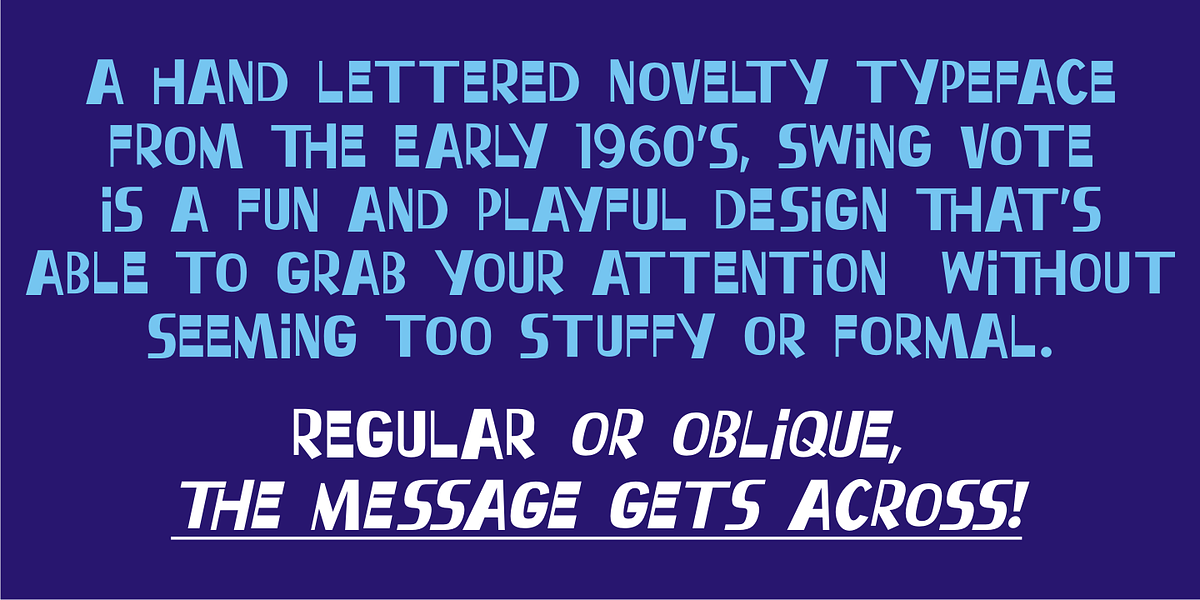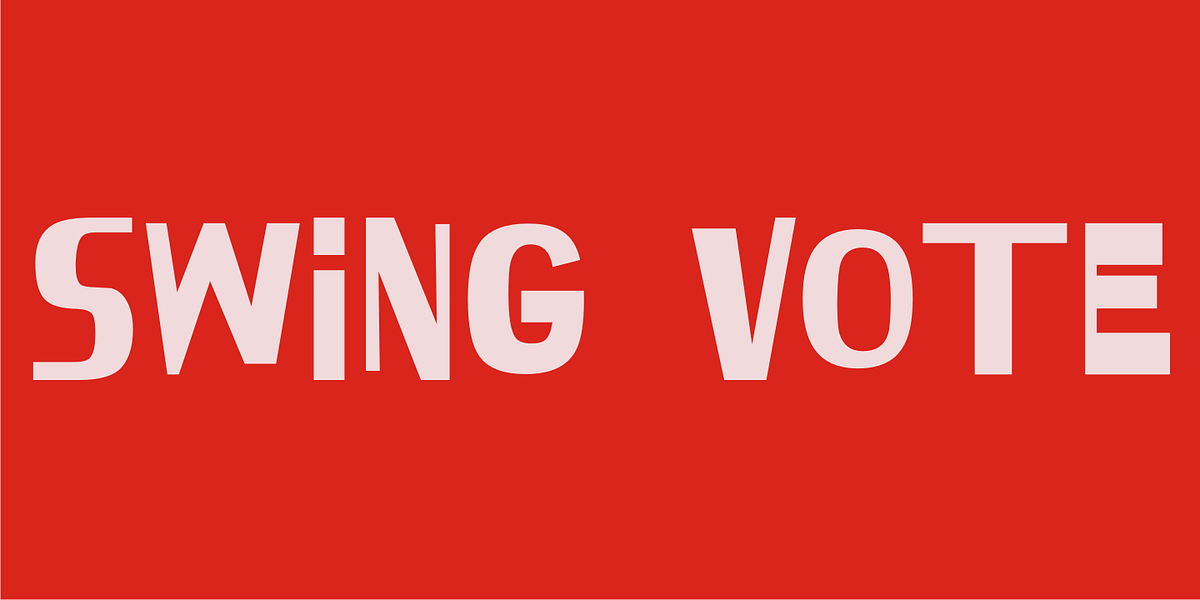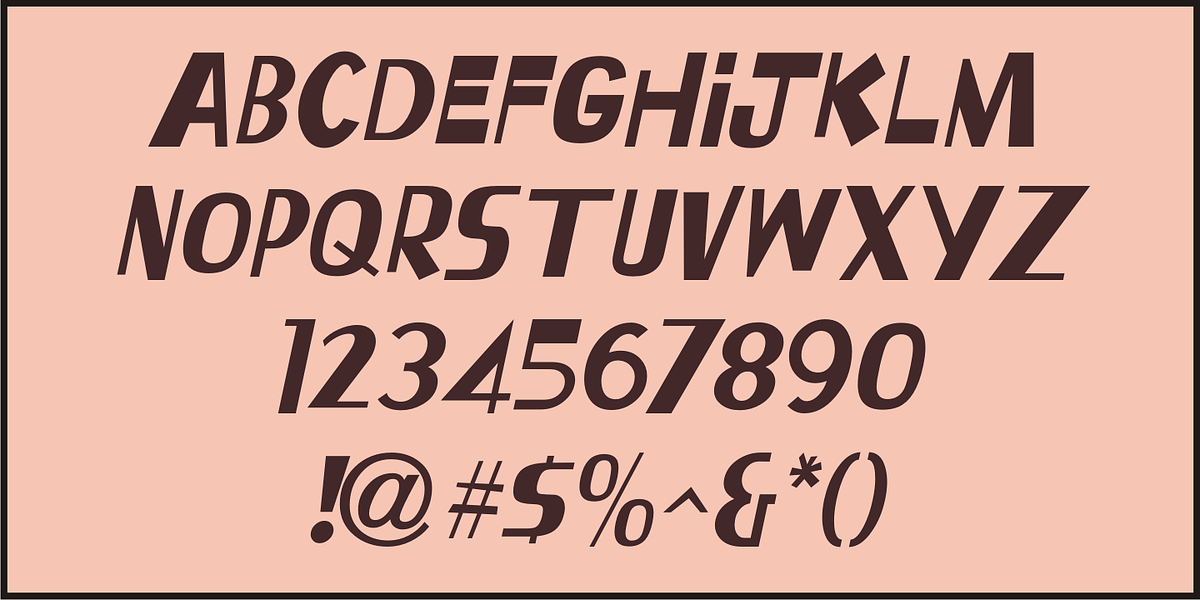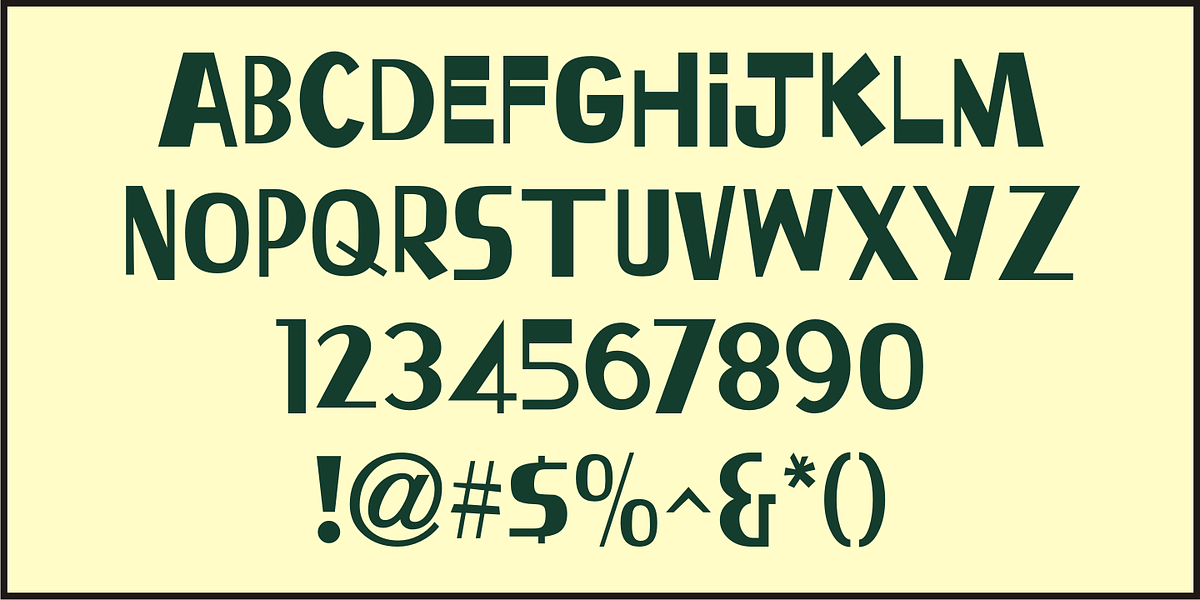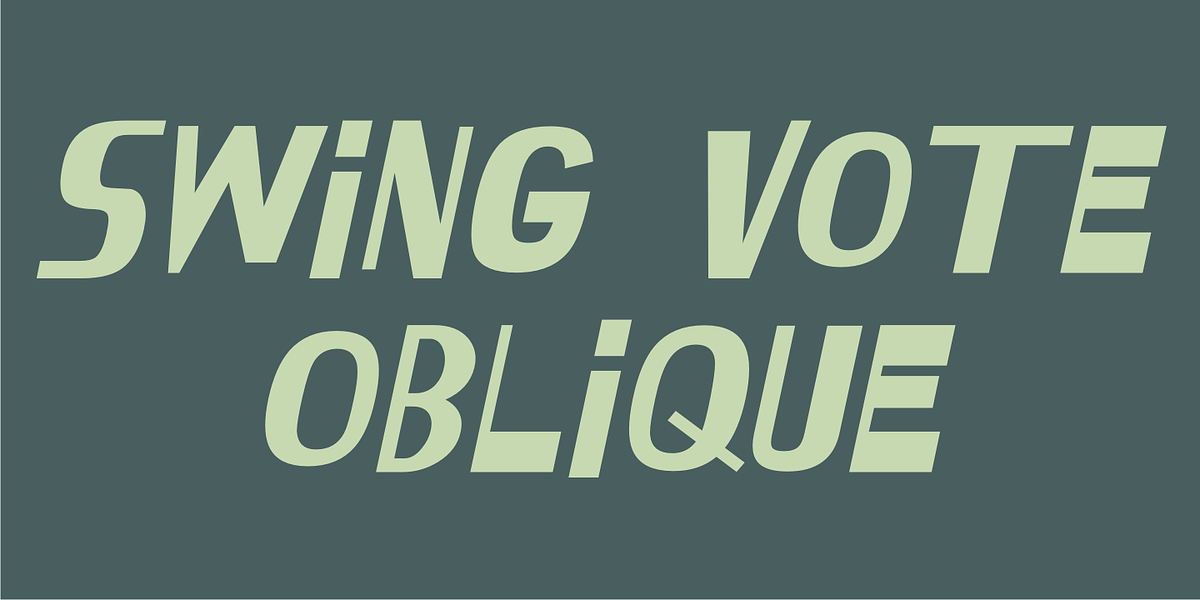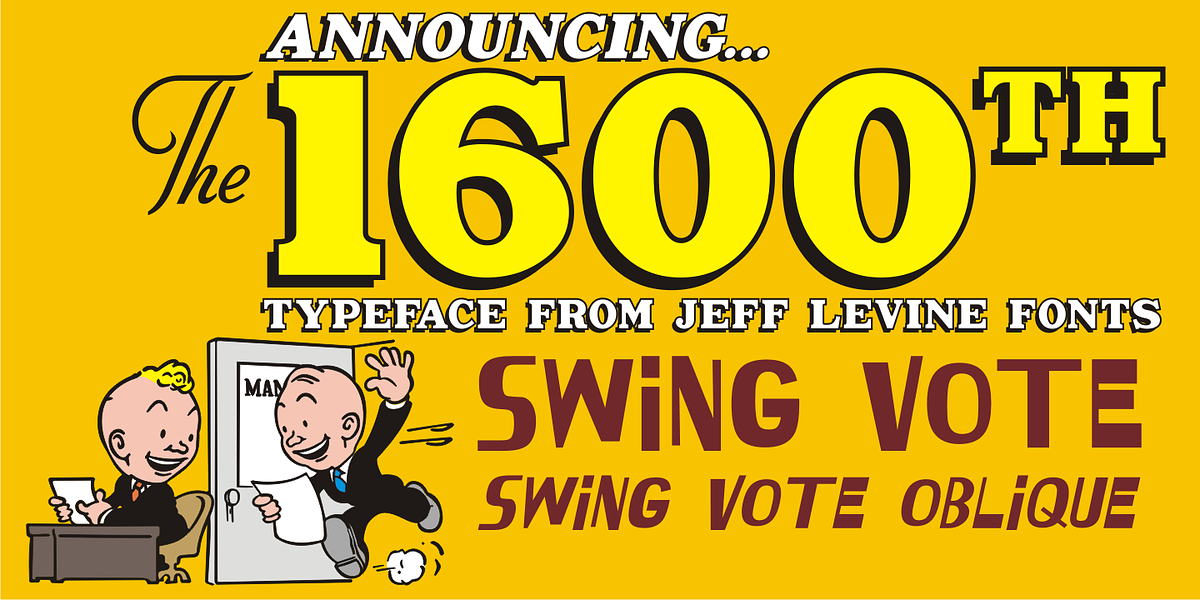
Swing Vote JNL
A 1964 piece of sheet music entitled “Old Soldiers Never Die (They Just Fade Away)” was based on the farewell speech General Douglas MacArthur gave to Congress on April 19, 1951.
This particular edition of the song sheet had part of his speech (as well as its title) hand lettered in a free-form sans serif reminiscent of the lettering done by such noted lettering artists as Paul Coker and Saul Bass.
The casual and playful style of this type design became the inspiration for Swing Vote JNL, which is available in both regular and oblique versions.